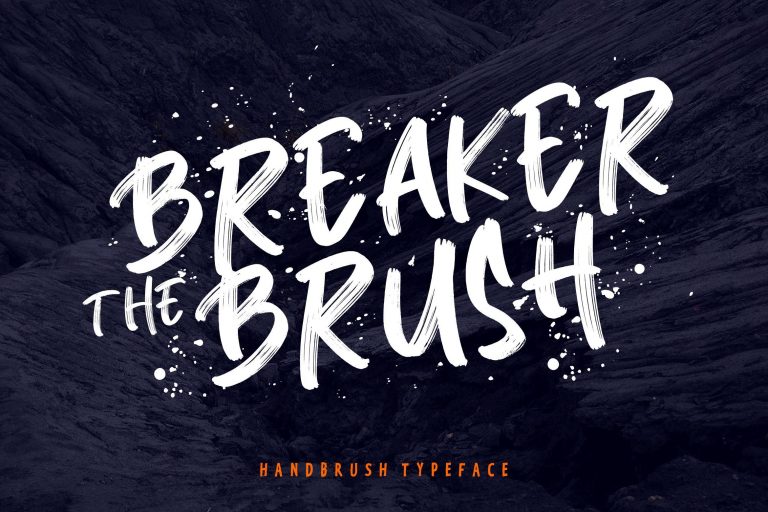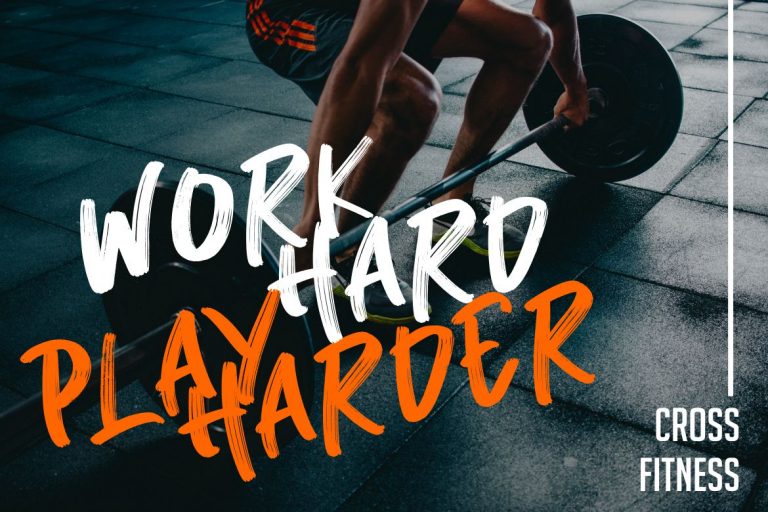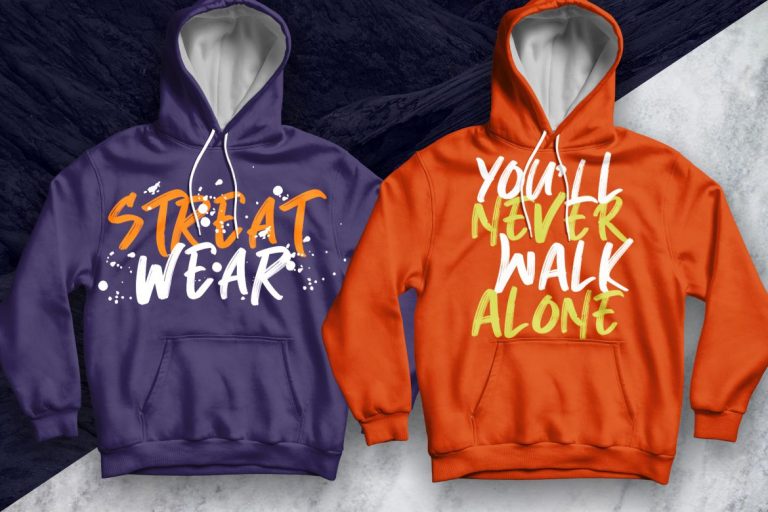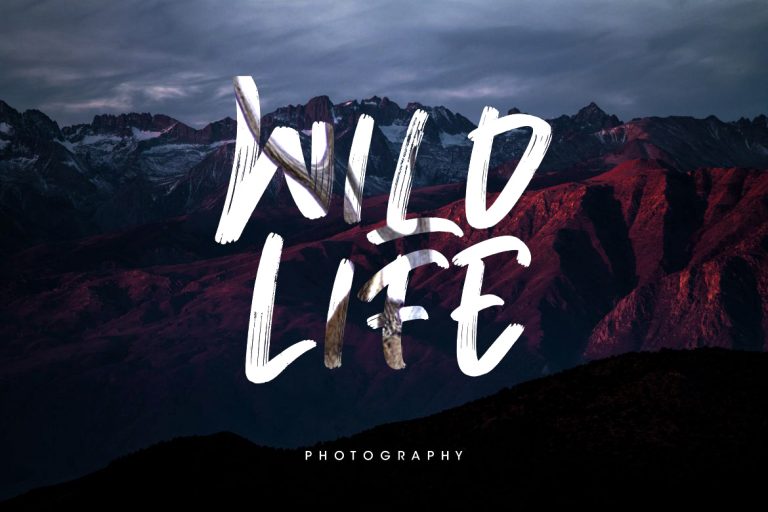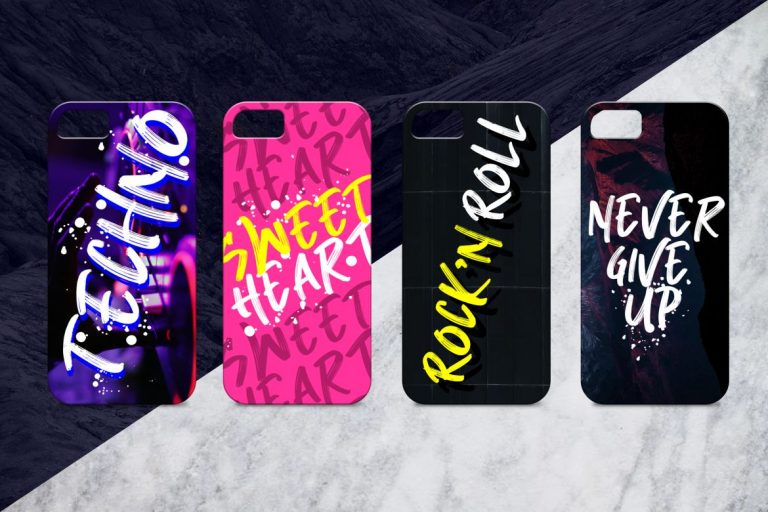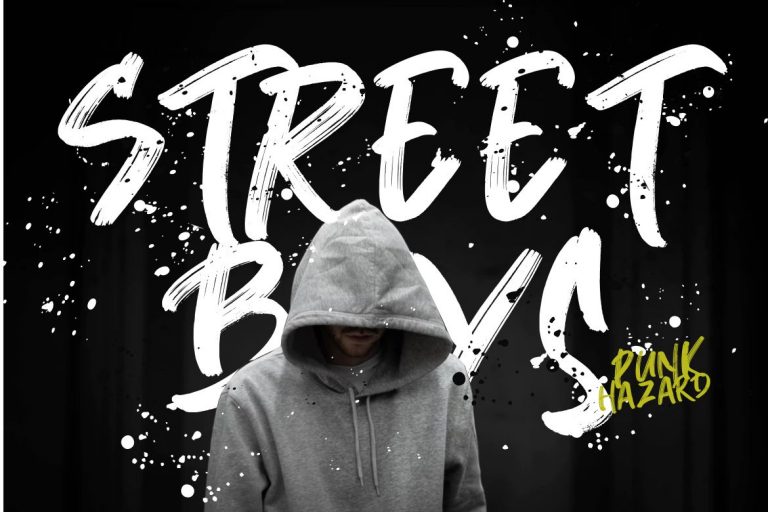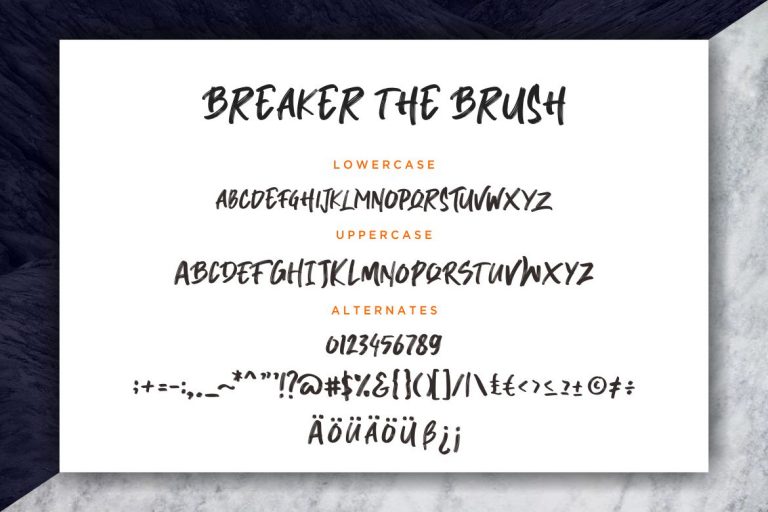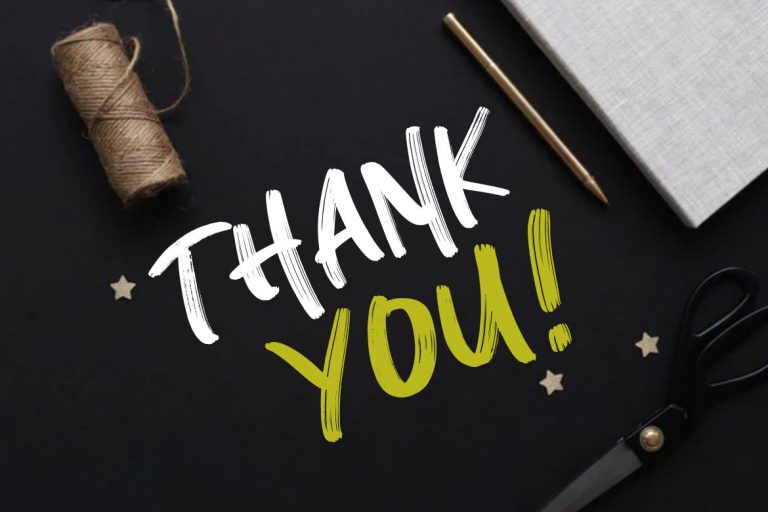
Breaker The Brush is a brush script that is written carefully crafted and full of imagination with rough textures.
Breaker The Brush is perfect for branding projects, logo, wedding designs, social media posts, advertisements, product packaging, product designs, label, photography, watermark, invitation, stationery and any projects that need handwriting taste.
- Fonts include multilingual support for; ä ö ü Ä Ö Ü ß ¿ ¡
Breaker The Brush Typeface